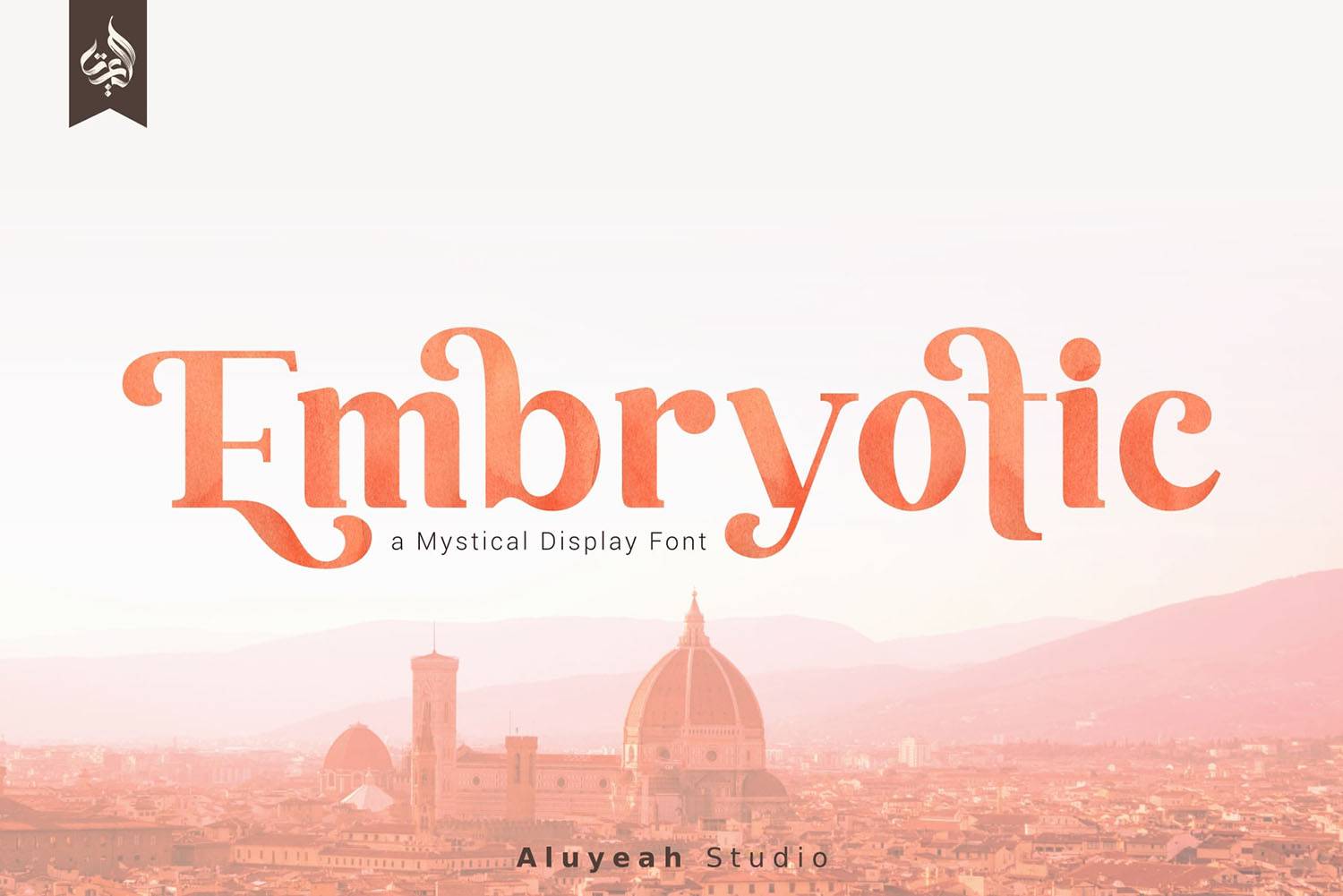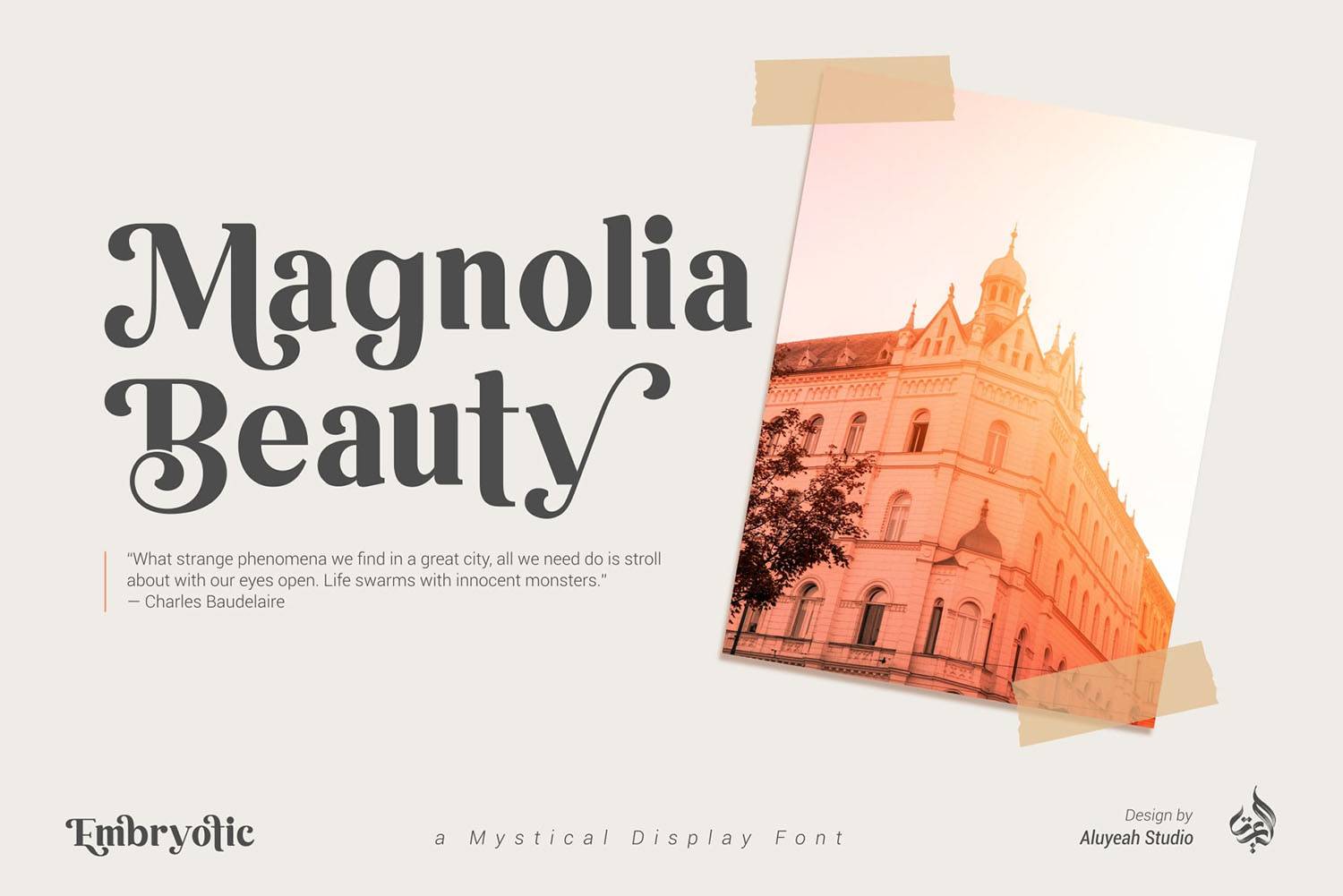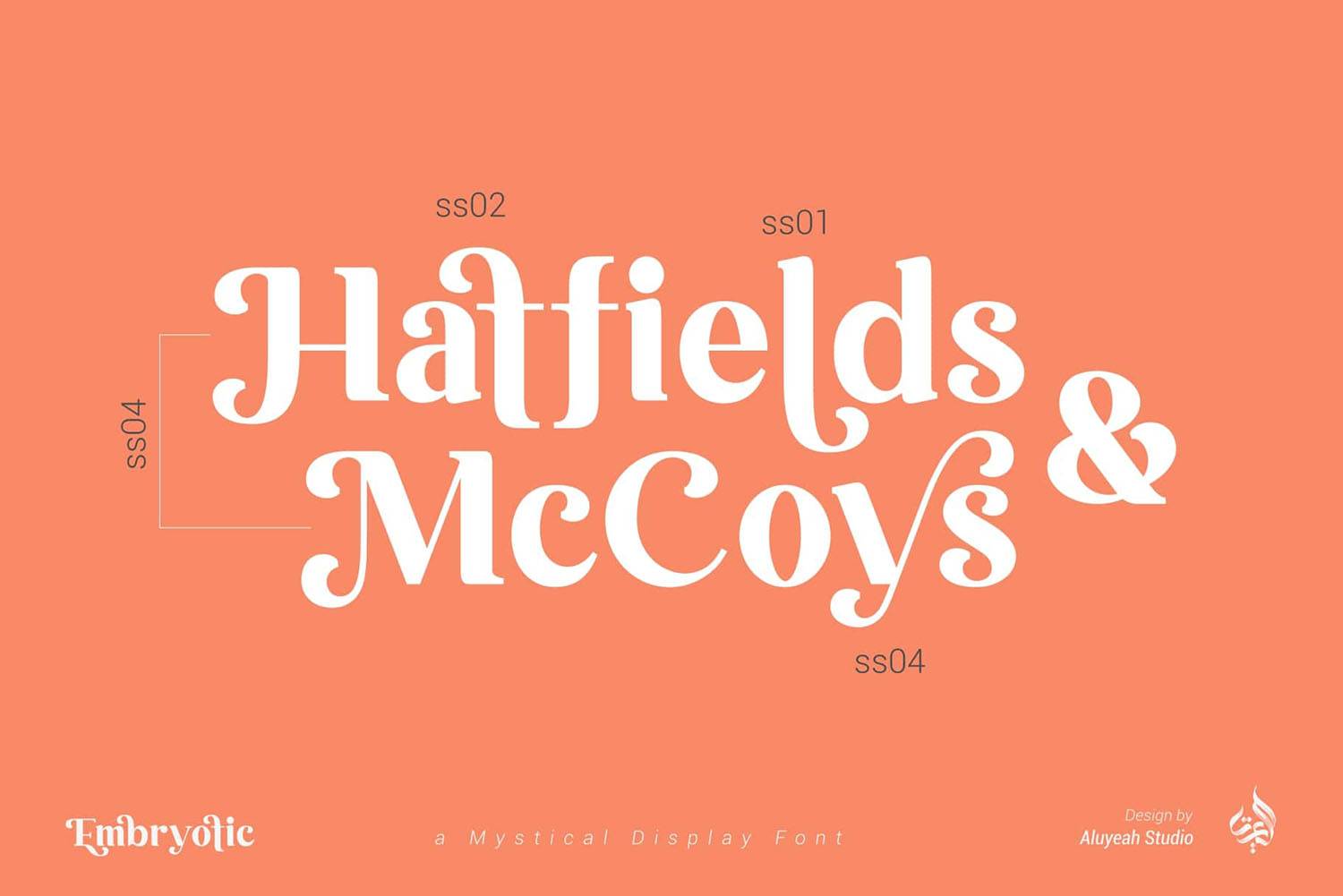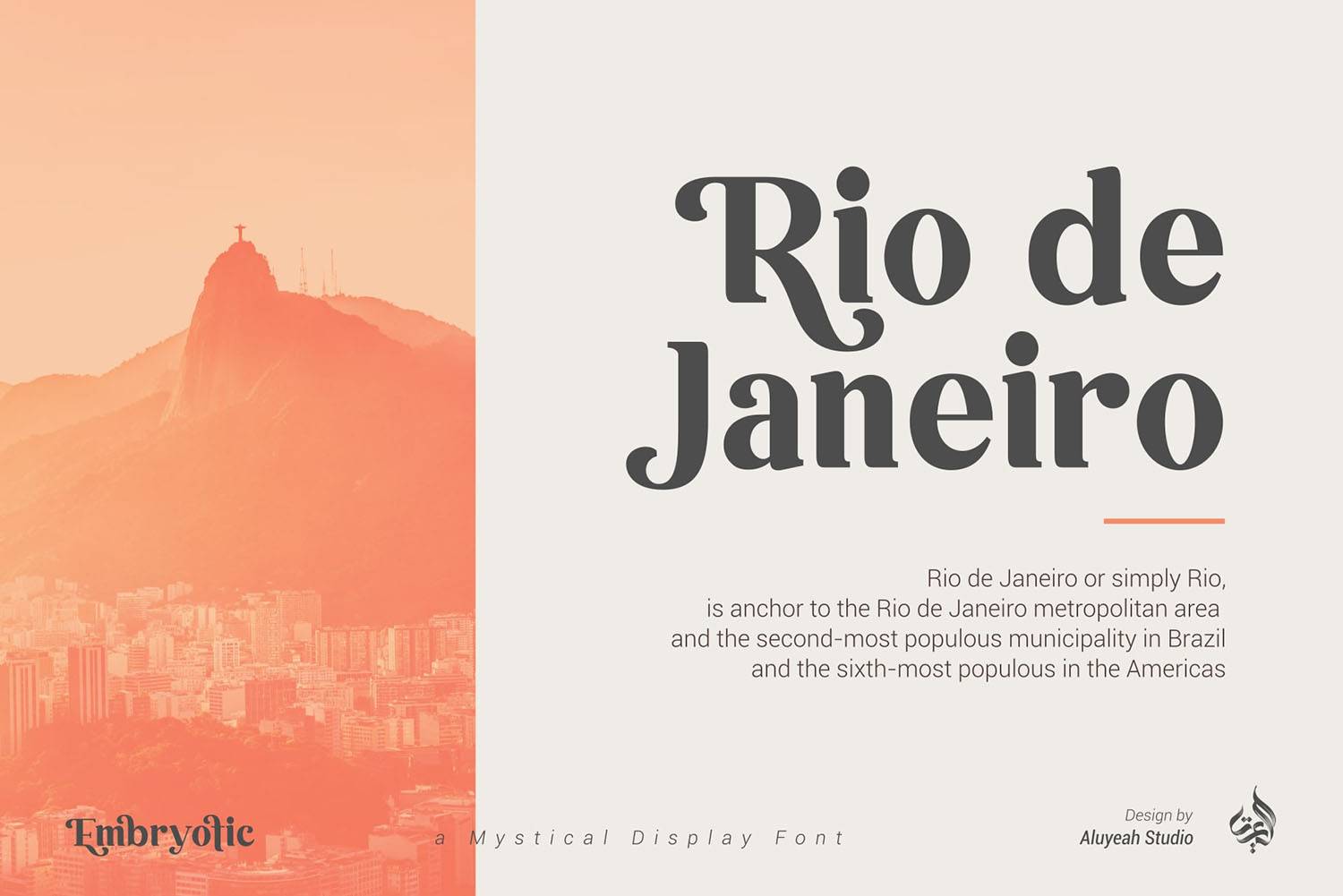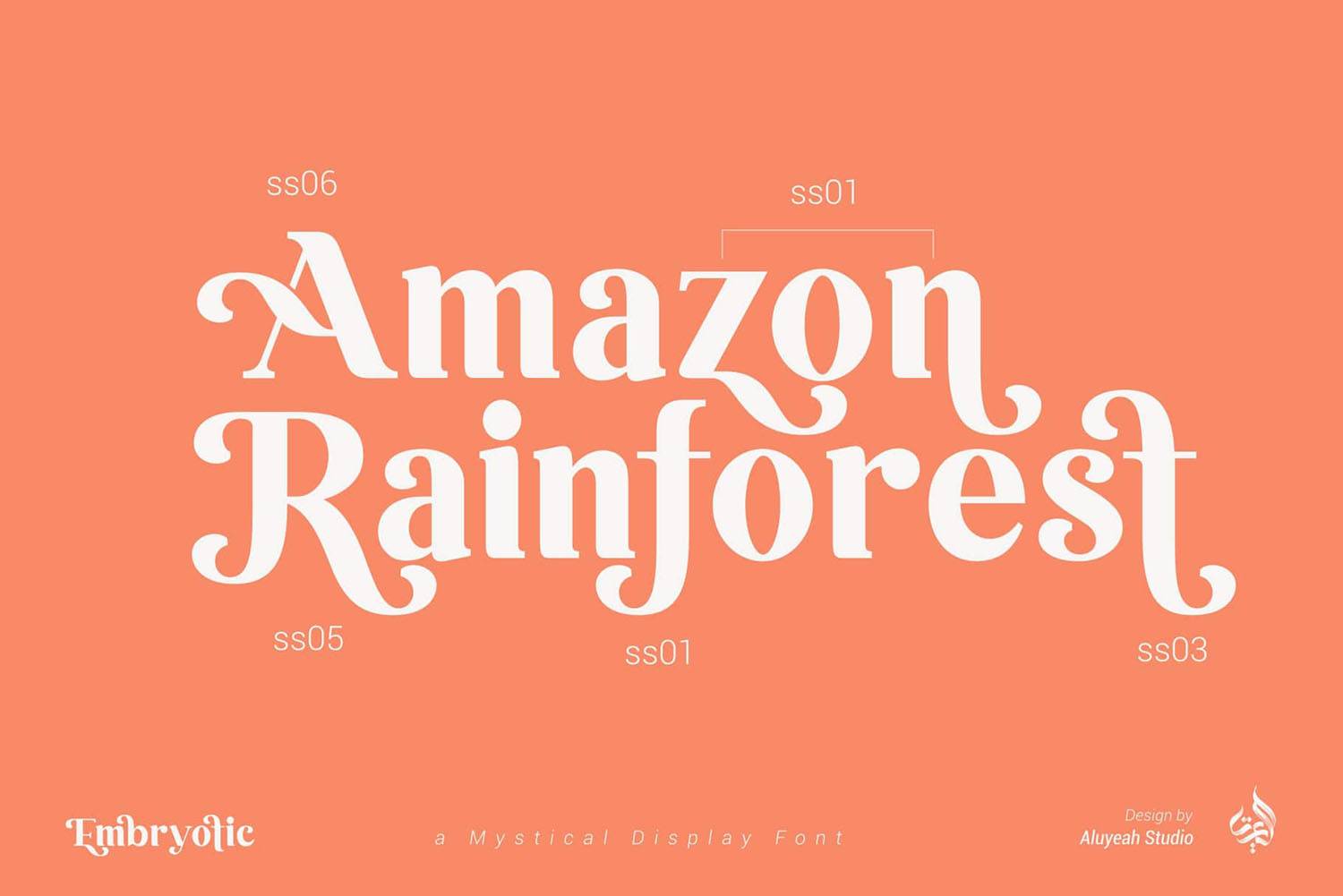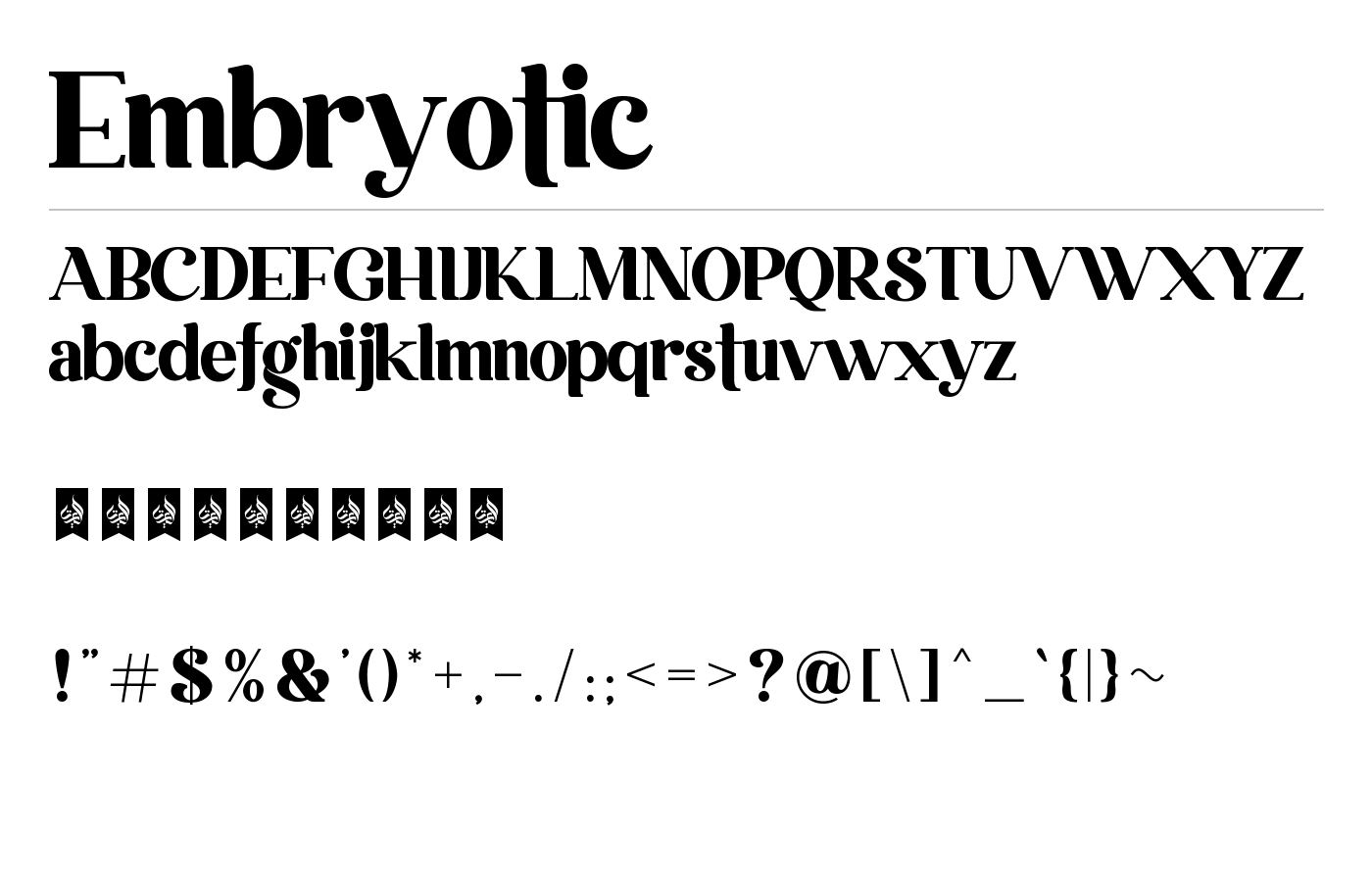
Embryotic is a distinctive serif font with a bold weight and high stroke contrast that combines modern sharpness with classic sophistication. Its unique letterforms, such as the curved tails and strong serifs, give it a confident yet elegant personality, making it ideal for editorial design, high-end branding, and eye-catching headlines. This font works best where a striking, luxurious impression is desired, adding a touch of refinement and style to any project.
Embryotic Font
About Embryotic Font